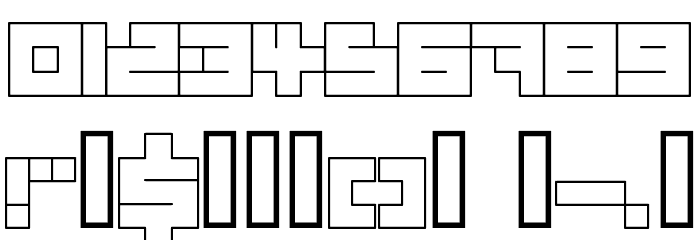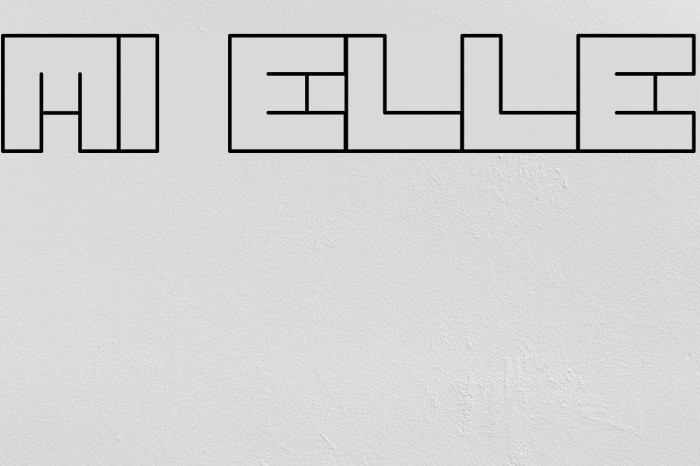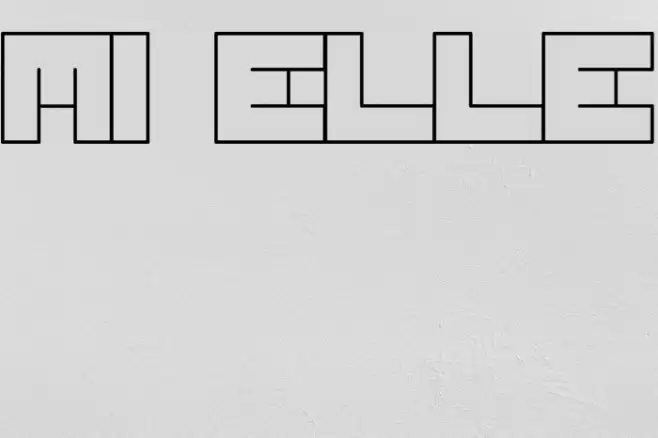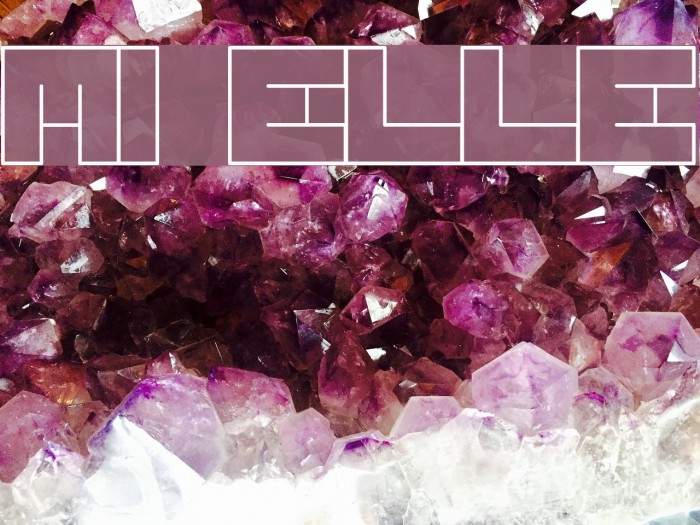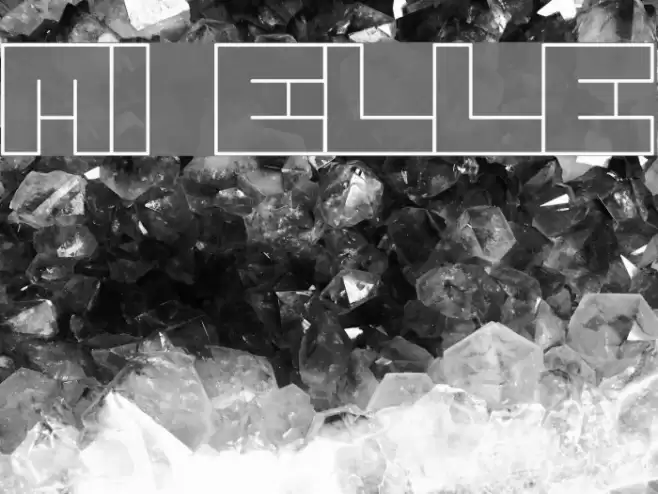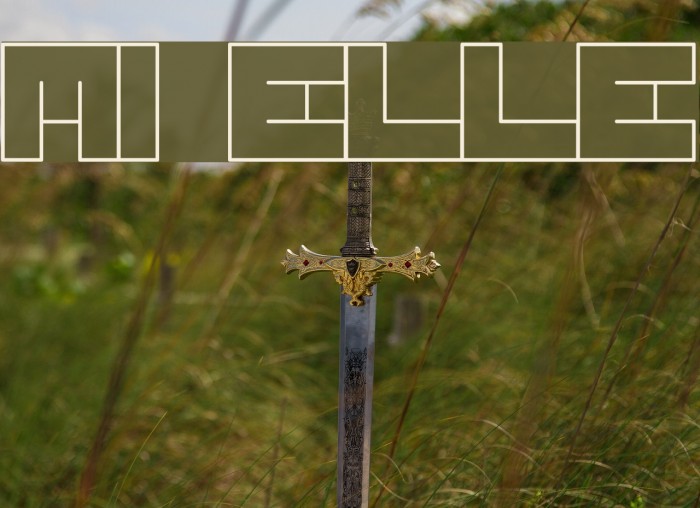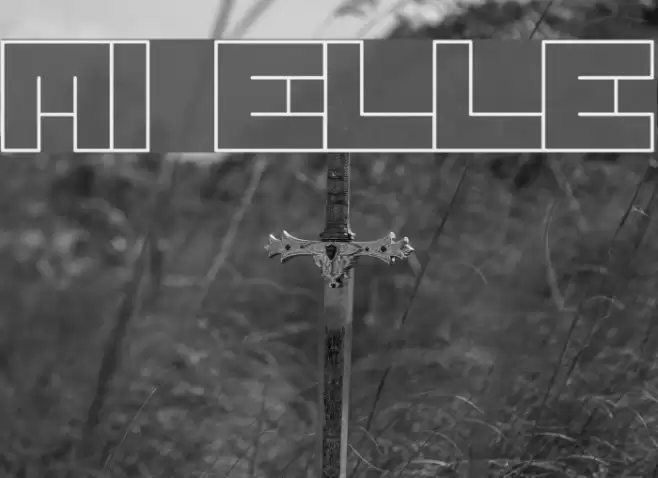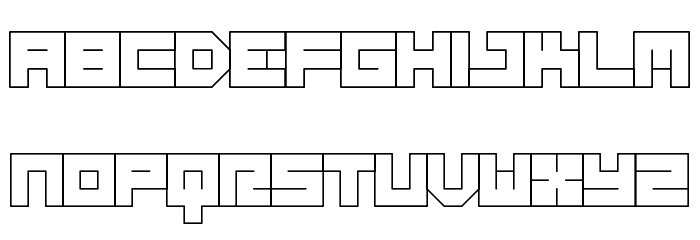
Miss Ellen Font
Miss Ellen Description
This font features a bold, geometric design with a distinct block-like structure. Each character is crafted with sharp angles and straight lines, giving it a futuristic and digital appearance. The uppercase and lowercase letters maintain a consistent height, contributing to a uniform look. The numbers and special characters follow the same geometric style, ensuring cohesion across all elements. The font's outline style adds a unique touch, making it stand out in various design contexts.
| Proposed Projects | Ideal for tech-themed projects, digital art, video game graphics, and modern branding. |